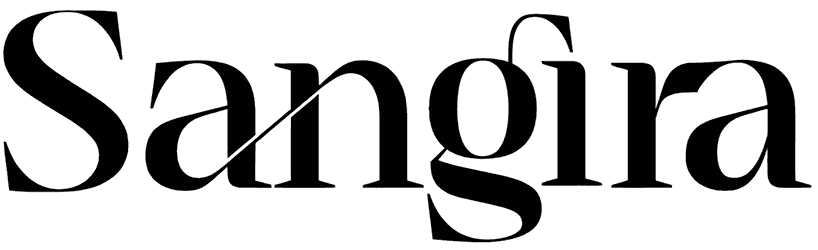
Sangira Font
Let us introduce a stylish invitation font, Sangira, that makes the strongest impact on viewers and engages them at first glance. There is nothing except beauty in this typeface that is designed with obsession and precision.
If sharing a sense of professionalism, trustworthiness, confidence, and respect really matters to you, don’t think about not fully supporting numbers anymore and utilize them in logos, branding, stationery, magazines, web pages, diplomas, or event invitations.